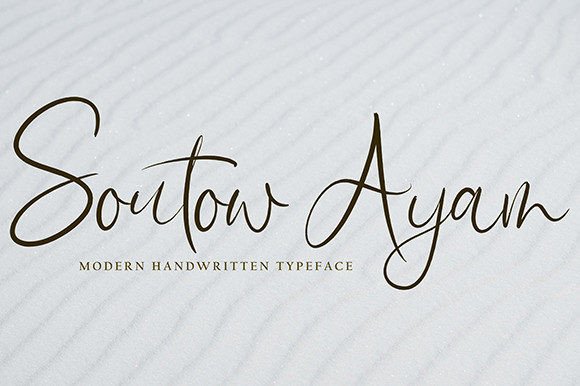
Immerse yourself in the world of Soutow Ayam Font, a mesmerizing script font that will leave you spellbound. This flowing handwritten font exudes elegance and sophistication, adding a touch of timeless beauty to any project. Its distinct style will capture your heart, and its versatility will empower you to create designs that are both visually striking and deeply meaningful.
Picture this: your latest tattoo design, brought to life with the vibrant strokes of Soutow Ayam. Its delicate curves and elegant lines will transform your vision into a work of art, captivating the senses and leaving a lasting impression. The font's natural flow mimics the fluidity of ink on skin, creating a visually stunning and emotionally resonant design.
Step into the world of branding and elevate your creations with Soutow Ayam's enchanting charm. Let it grace your logos, posters, and packaging, captivating your audience and leaving them with a sense of wonder. Its graceful curves and elegant lines will add a touch of sophistication to any marketing campaign, leaving a lasting impression on potential customers.
Dive into the realm of digital artistry and let Soutow Ayam Font ignite your creativity. Its distinct style will add a touch of individuality to your web designs, social media graphics, and digital illustrations. Whether you're creating eye-catching headlines, captivating social media posts, or stunning digital art, Soutow Ayam will elevate your creations to new heights.